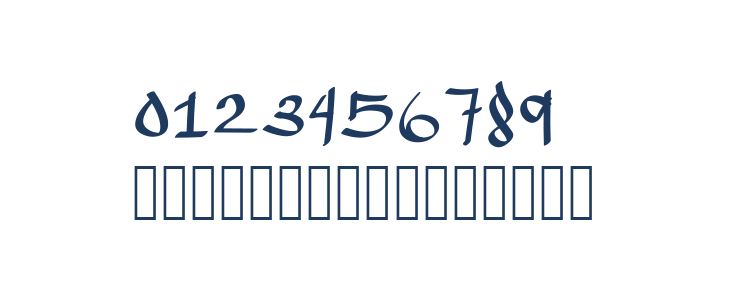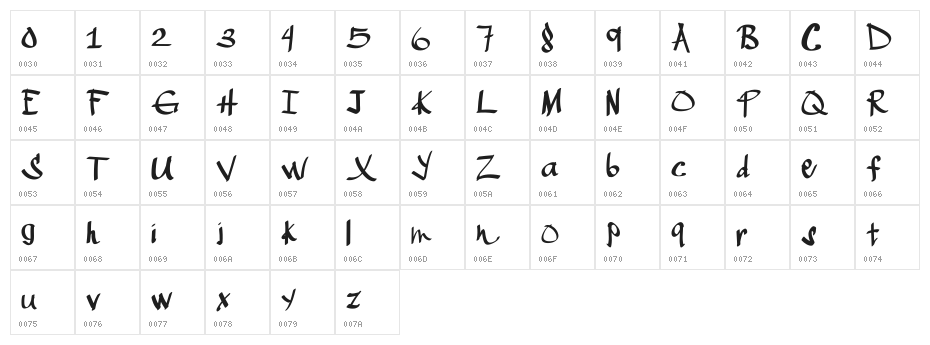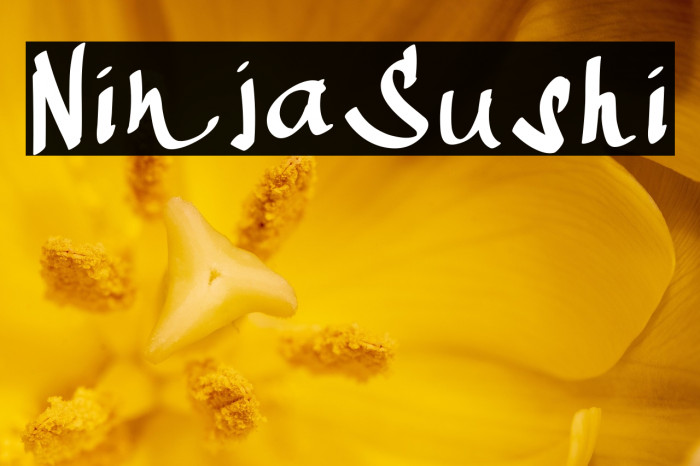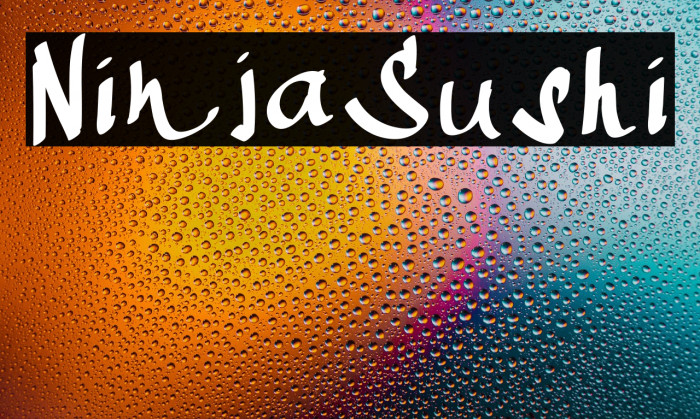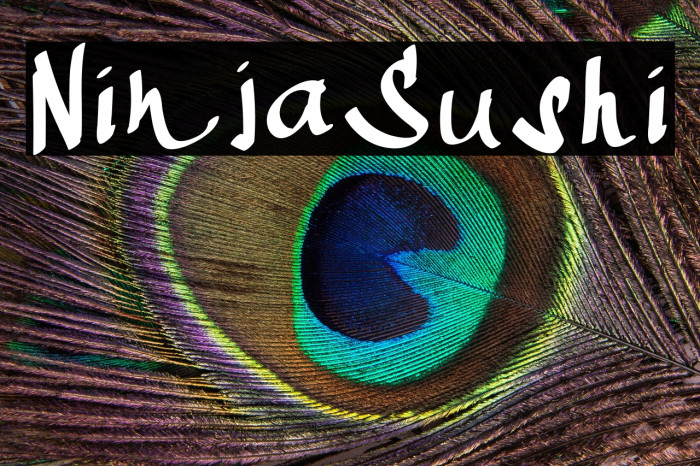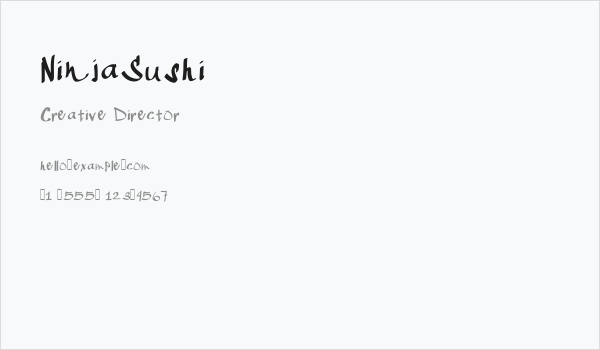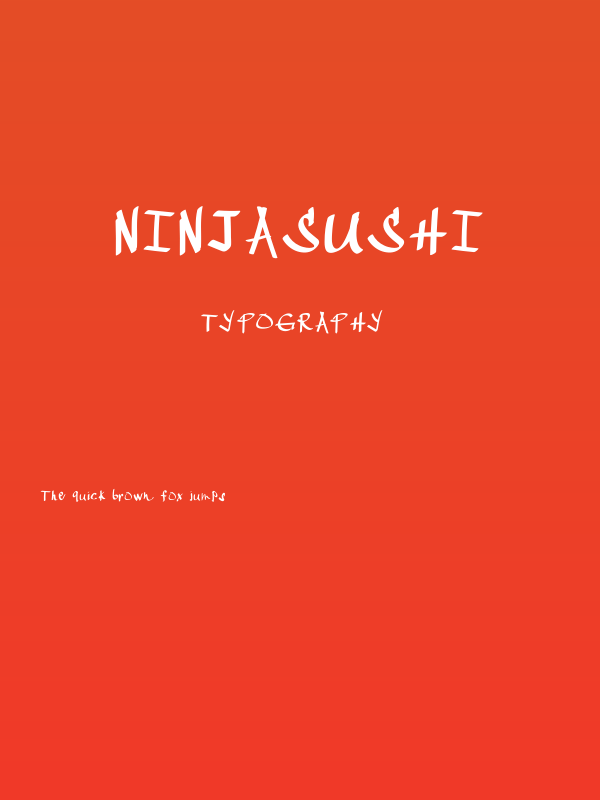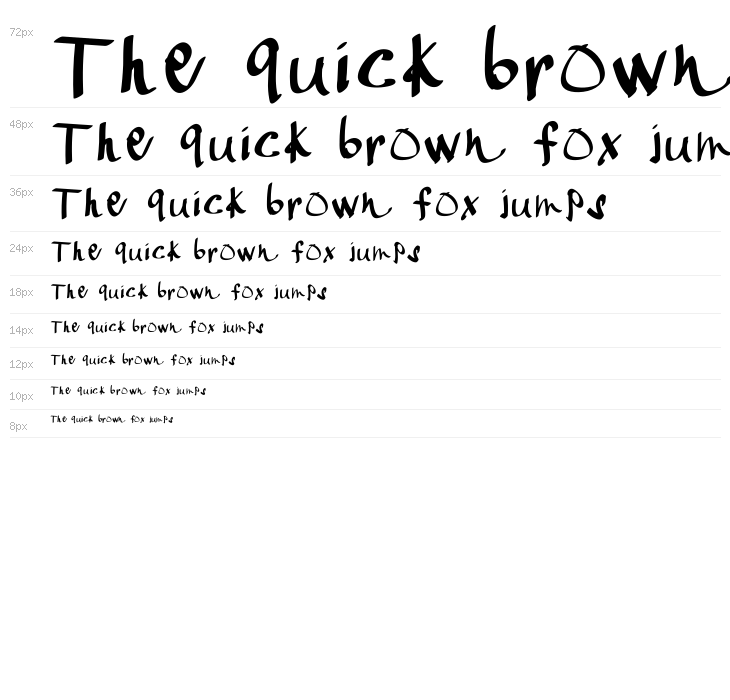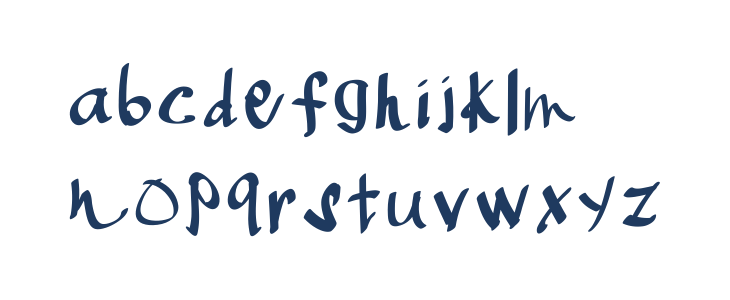
NinjaSushi Font
NinjaSushi Description
This font features a dynamic and energetic style, reminiscent of brush strokes with a slightly irregular and playful appearance. The characters exhibit a bold and expressive quality, with varying stroke thickness that adds a sense of movement and fluidity. The uppercase letters are distinct and commanding, while the lowercase letters maintain a cohesive flow. Numbers and special characters are designed to match the overall aesthetic, ensuring consistency across all elements. The font's unique style makes it suitable for projects that require a touch of creativity and flair.